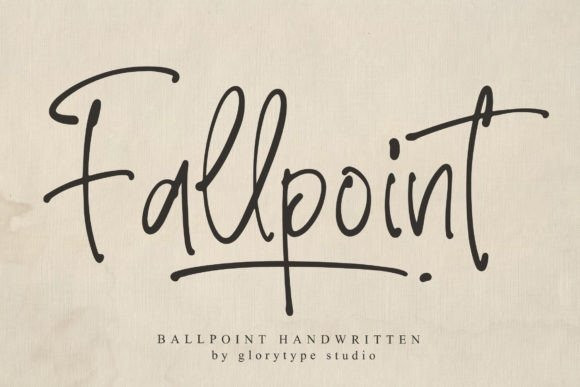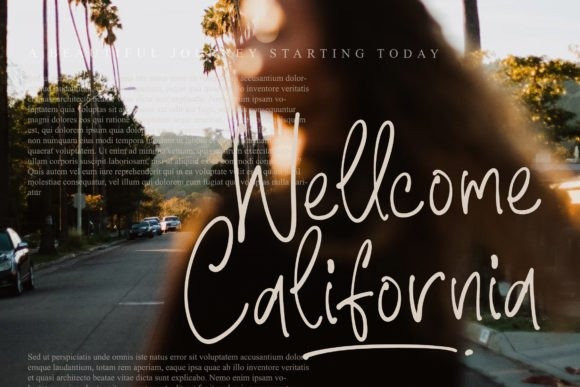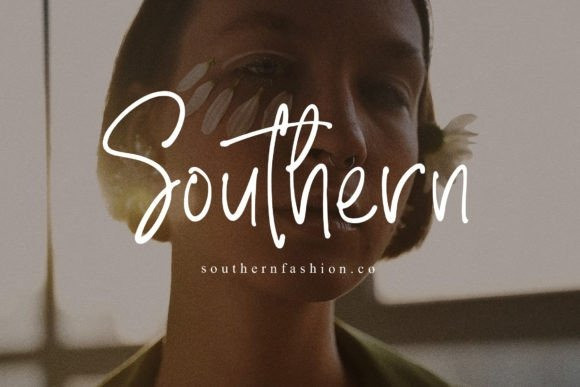
Fallpoint Font
Fallpoint – Ballpoint Handwritten , from Glorytype Studio, suitable for any projects such as: logos, branding projects, homeware designs, product packaging, mugs, quotes, posters, shopping bags, t-shirts, book covers, name card, invitation cards, greeting cards, label, photography, watermark, special events, and all your other lovely projects that need a beautiful script taste.